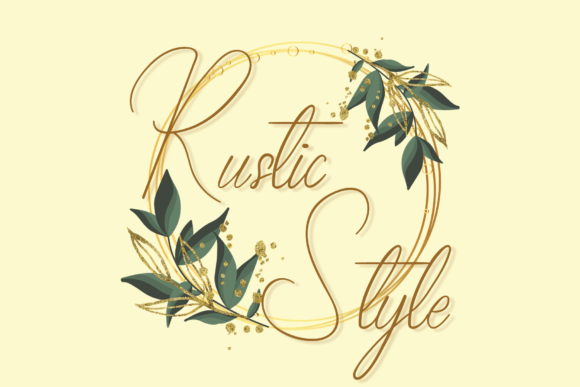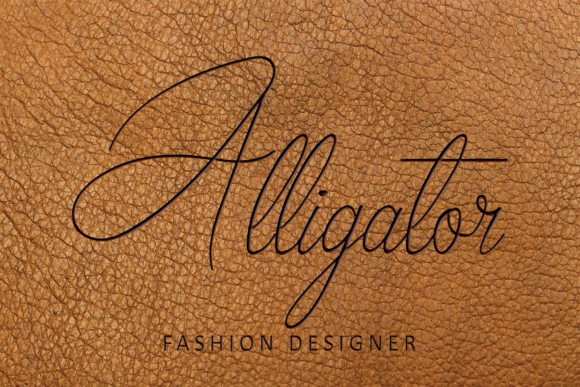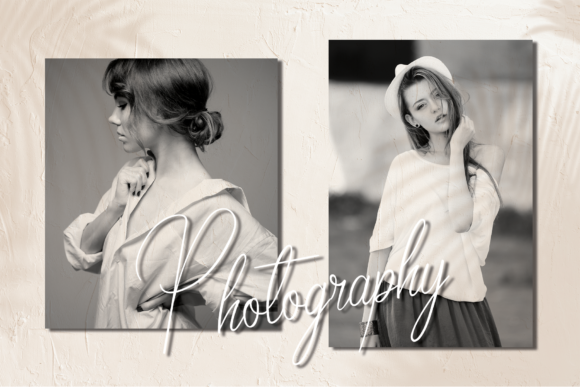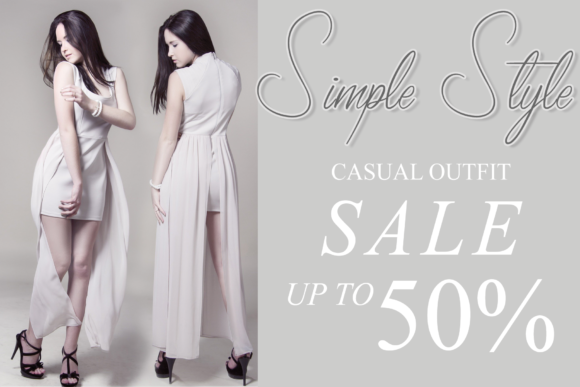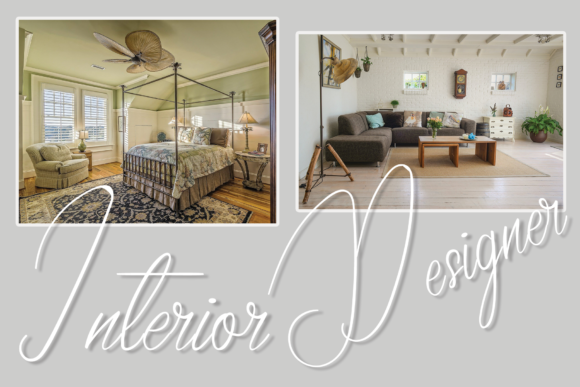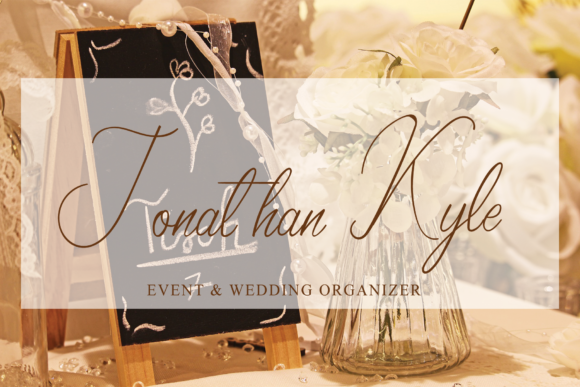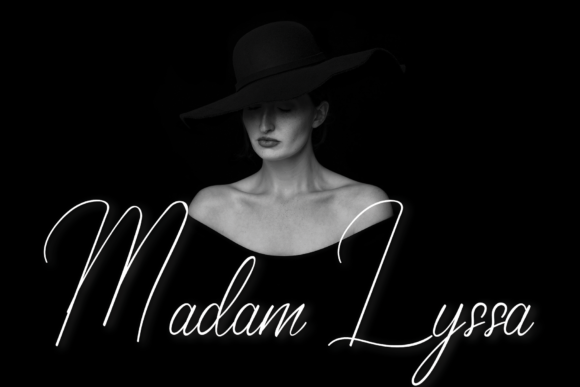
Rustic Style Font
About Rustic Style Font
Rustic Style is a thin and elegant handwritten font. Use this font for your designs and explore its endless possibilities.